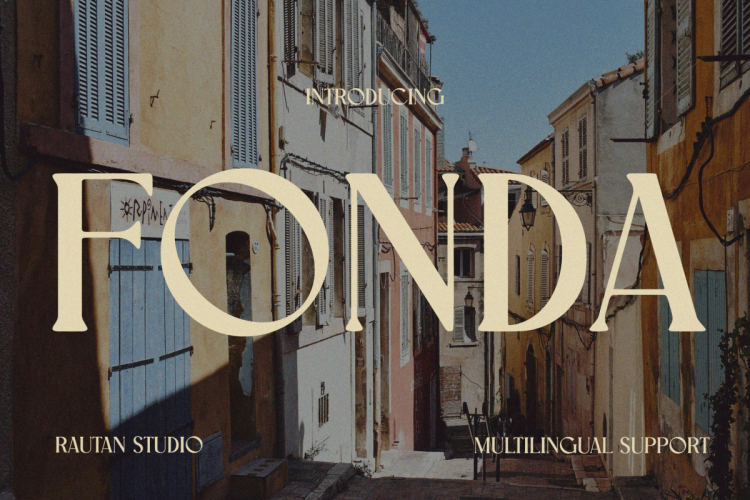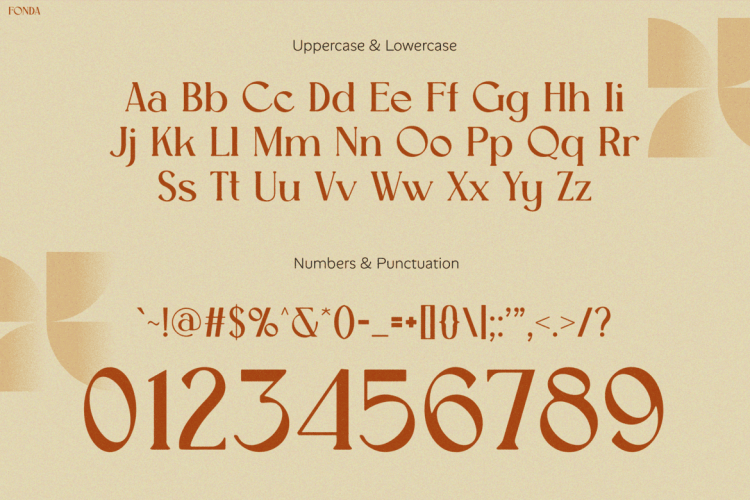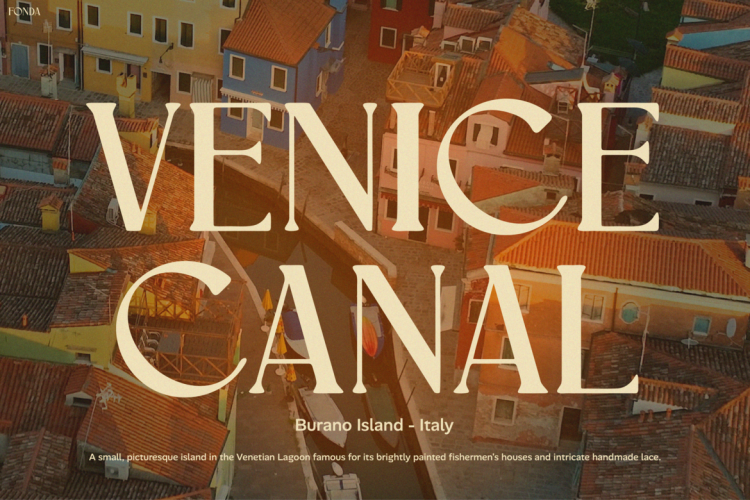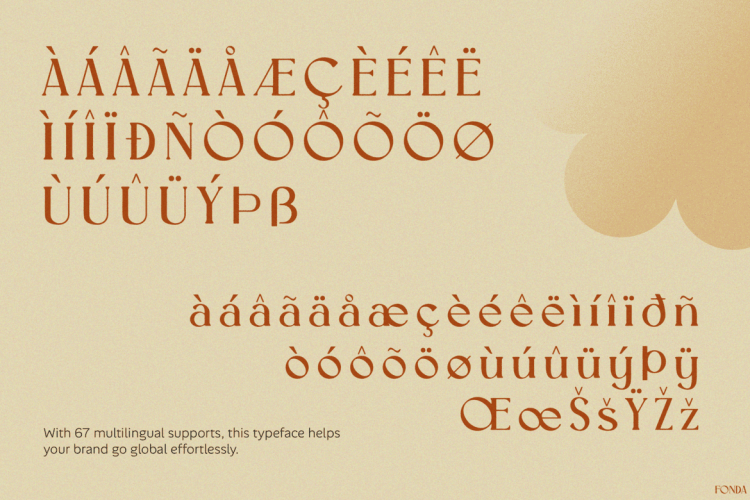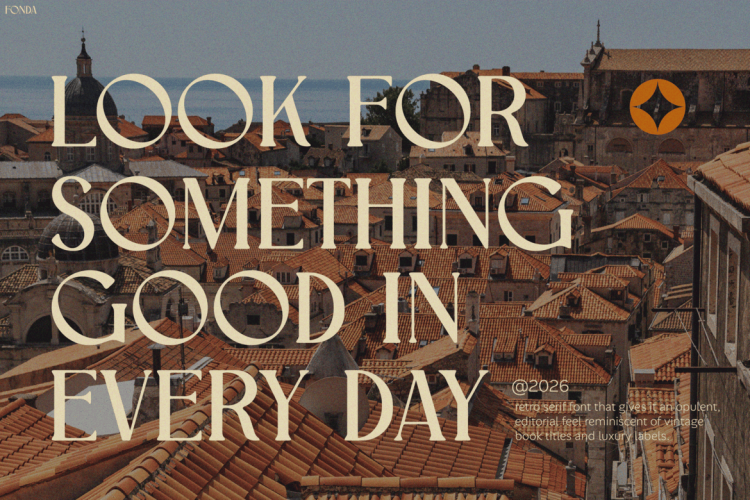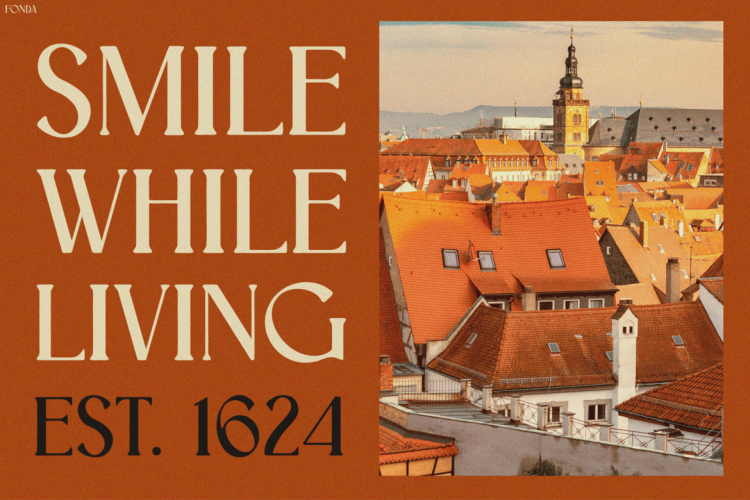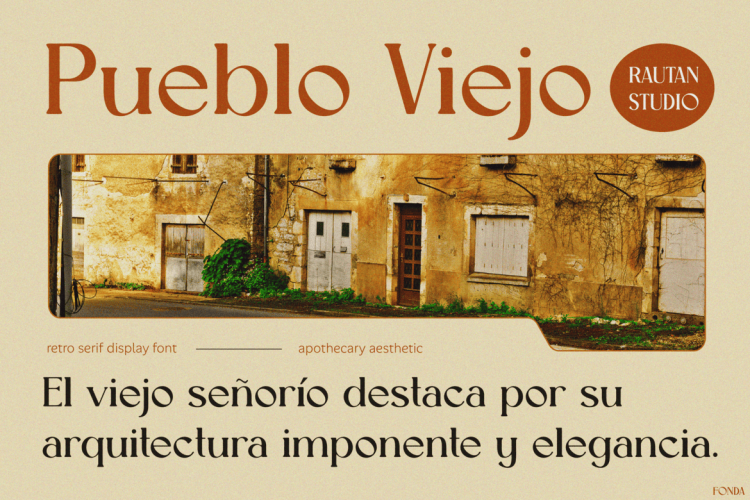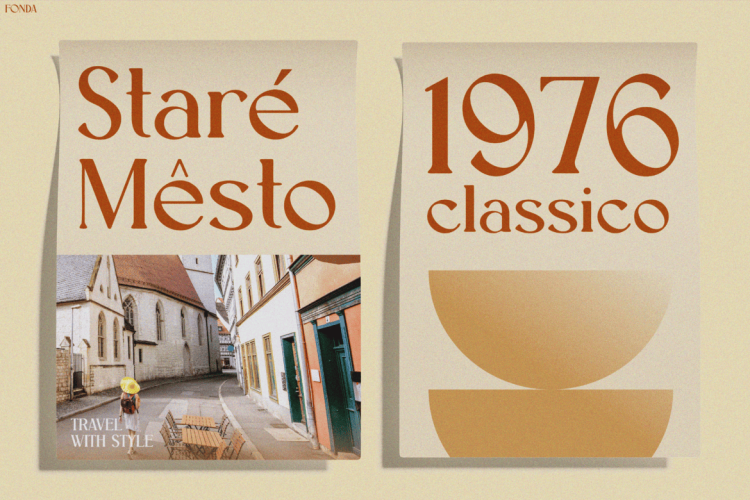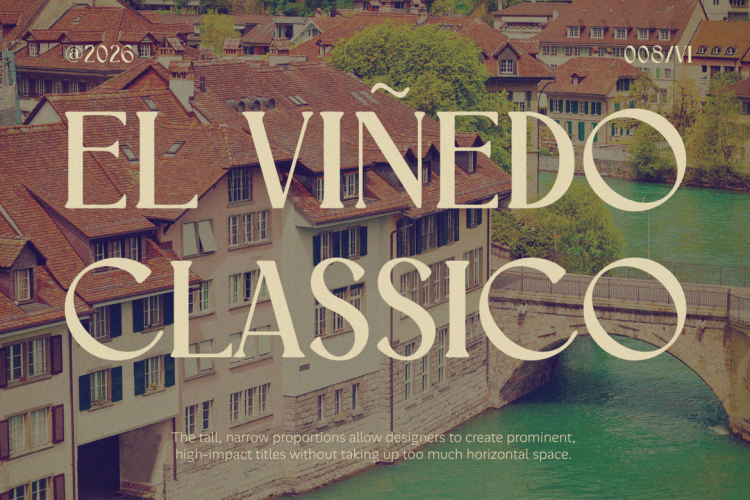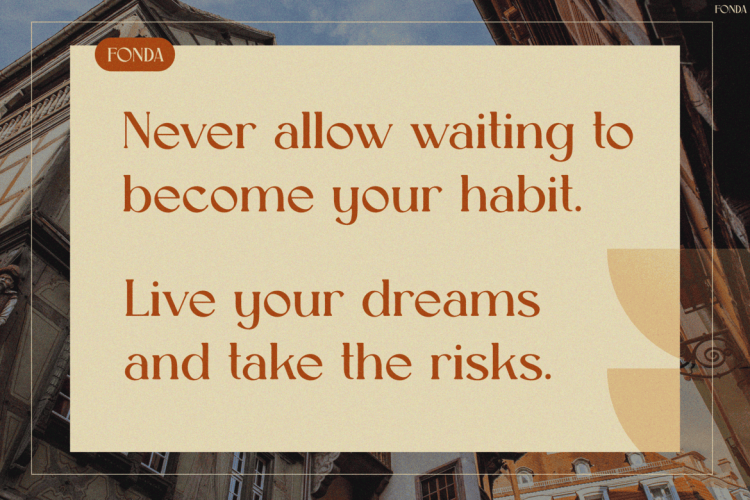
FONDA โ Vintage Old Town & Rustic Display Font
Vintage Font FONDA feels like a warm afternoon stroll through a sun-soaked old town square. To begin with, its soft rounded serifs and gentle curves capture a rustic, storybook charm. At the same time, the letters carry just enough weight to feel confident and grounded. This balance makes FONDA perfect for warm, nostalgic branding. Furthermore, it comes packed with multilingual support across 67 languages. It also includes extended accented characters for global flexibility. As a result, FONDA speaks fluently across cultures while keeping its cozy, old-world soul intact. Whether paired with travel photography or rustic textures, this font instantly adds character and warmth to any design.
Vintage Font FONDA Perfect For
Above all, FONDA shines on travel branding, boutique hotel signage, and cafรฉ menus. It also works beautifully for rustic wedding invitations and vineyard or winery labels. In addition, it’s a natural fit for lifestyle quotes, journal covers, and heritage-inspired packaging.
Who Should Grab This